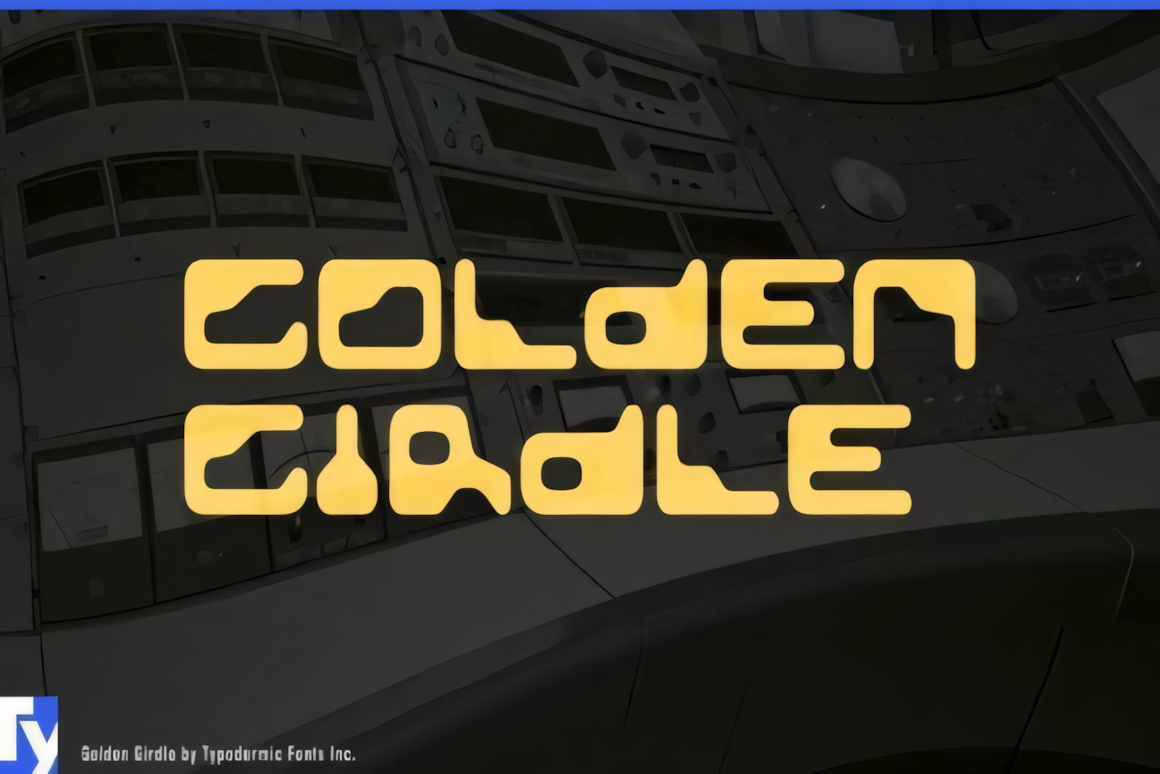
Golden Girdle is a bold and wide retro-futuristic display font that captures the essence of the 1960s. Inspired by the magnetic ink typography of that era, it blends vintage charm with a futuristic touch. Its unique letterforms make it perfect for eye-catching designs that stand out in both digital and print media.
This versatile font is ideal for a variety of creative projects. Use it for headings, logos, advertisements, printed quotes, packaging, websites, and social media posts. Whether you’re working on branding or promotional materials, Golden Girdle brings a distinctive Y2K font aesthetic that adds nostalgia and style to any design.
With its strong presence and retro-futuristic appeal, Golden Girdle transforms ordinary text into something truly captivating. Its wide structure and bold look make your designs come alive, ensuring they leave a lasting impression. Try Golden Girdle today and give your projects a touch of vintage-modern flair!